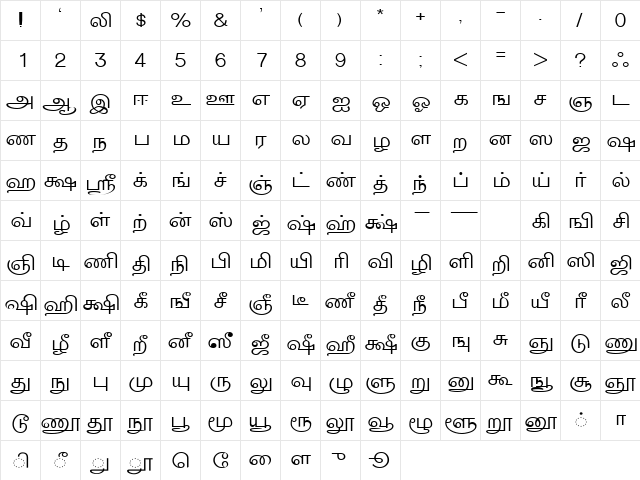
TMNEWS Normal
Design Context for TMNEWS Typeface
TMNEWS takes a measured approach to typography — its balanced proportions and neutral character make it a reliable workhorse for both digital and print work.